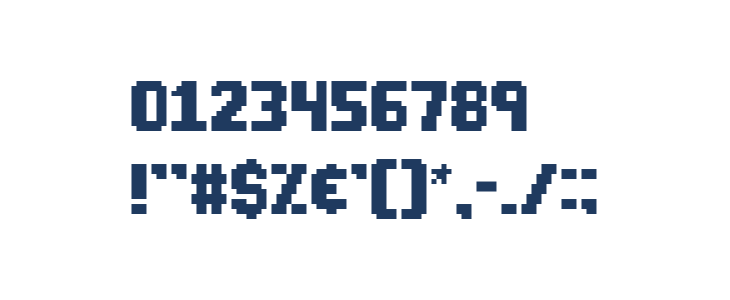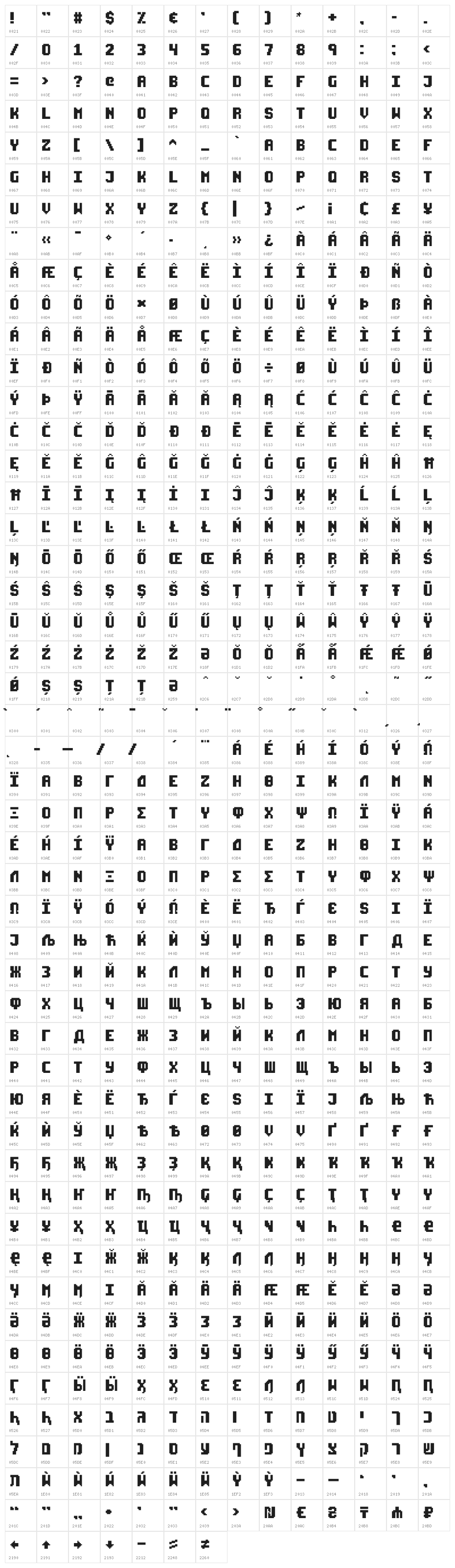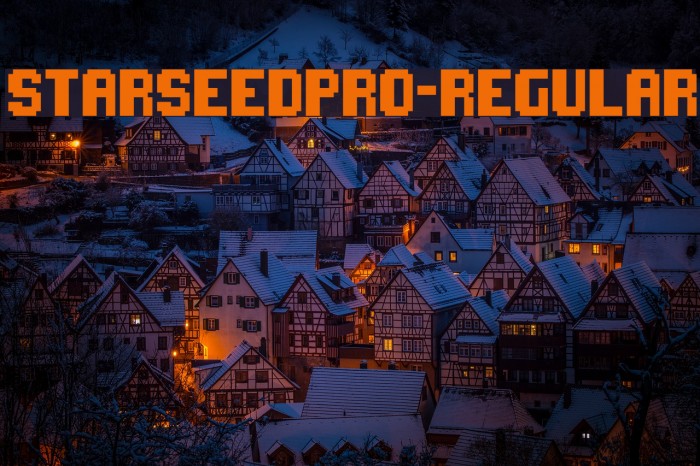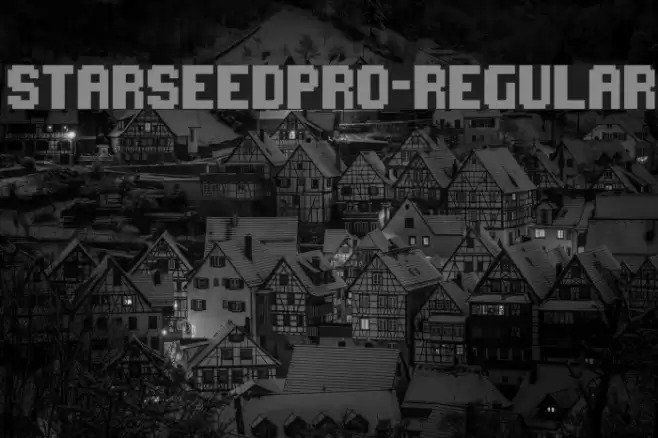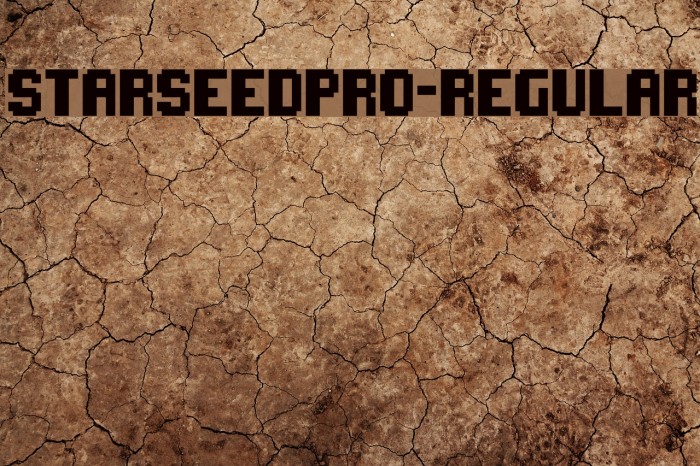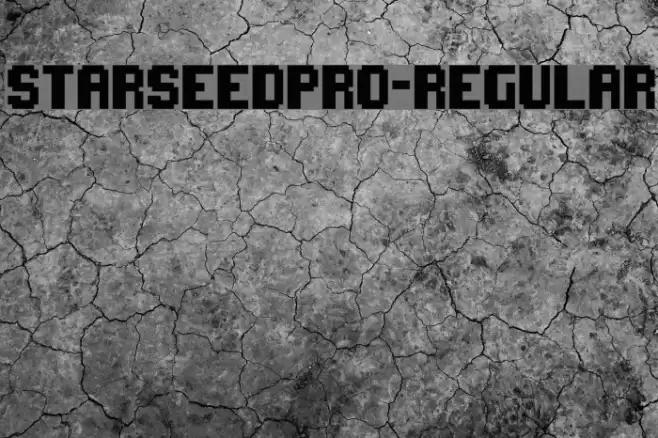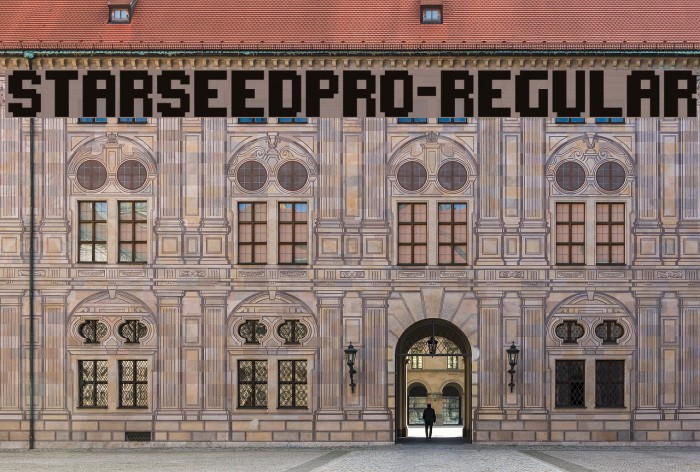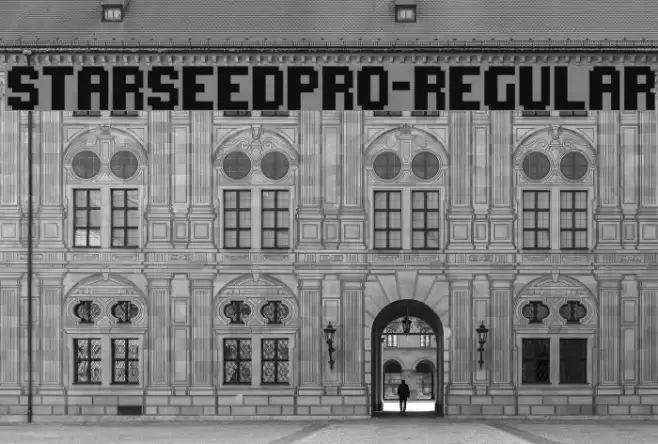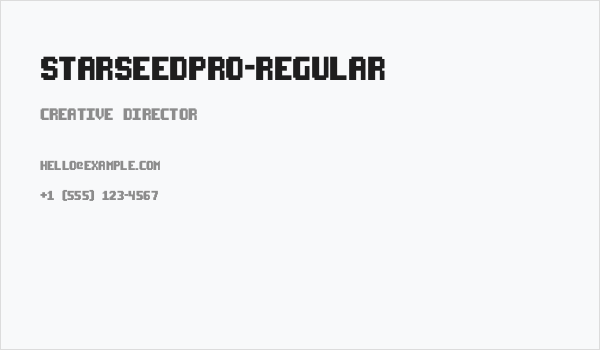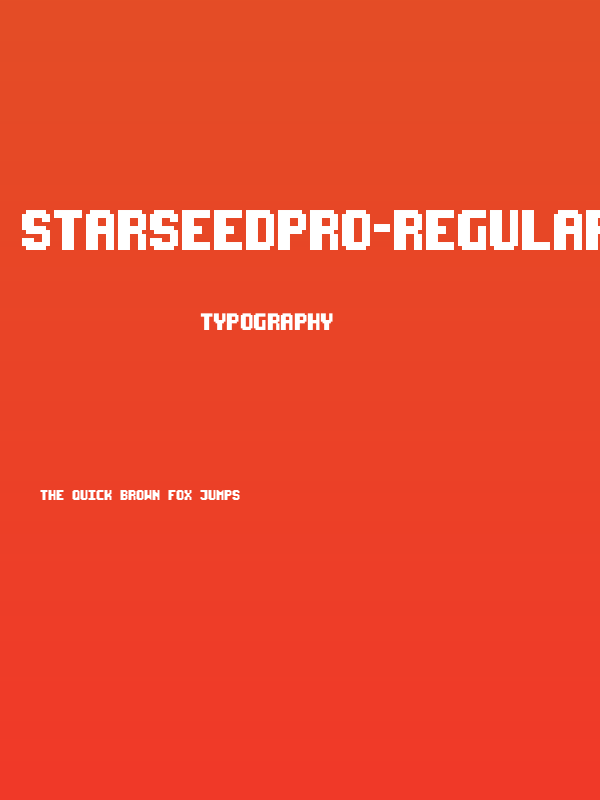
StarseedPro-Regular Font
StarseedPro-Regular Description
This font features a bold, pixelated design reminiscent of classic arcade games. Each character is constructed with a blocky, geometric style that emphasizes clarity and simplicity. The uniformity in stroke width across all characters contributes to a cohesive and structured appearance. The uppercase and lowercase letters maintain a consistent height, while the numerals and special characters are designed to match the overall aesthetic. This font's retro, digital feel makes it ideal for projects that aim to evoke nostalgia or a tech-inspired theme.
| Proposed Projects | Ideal for video game graphics, retro-themed posters, digital art, and tech-related branding. |